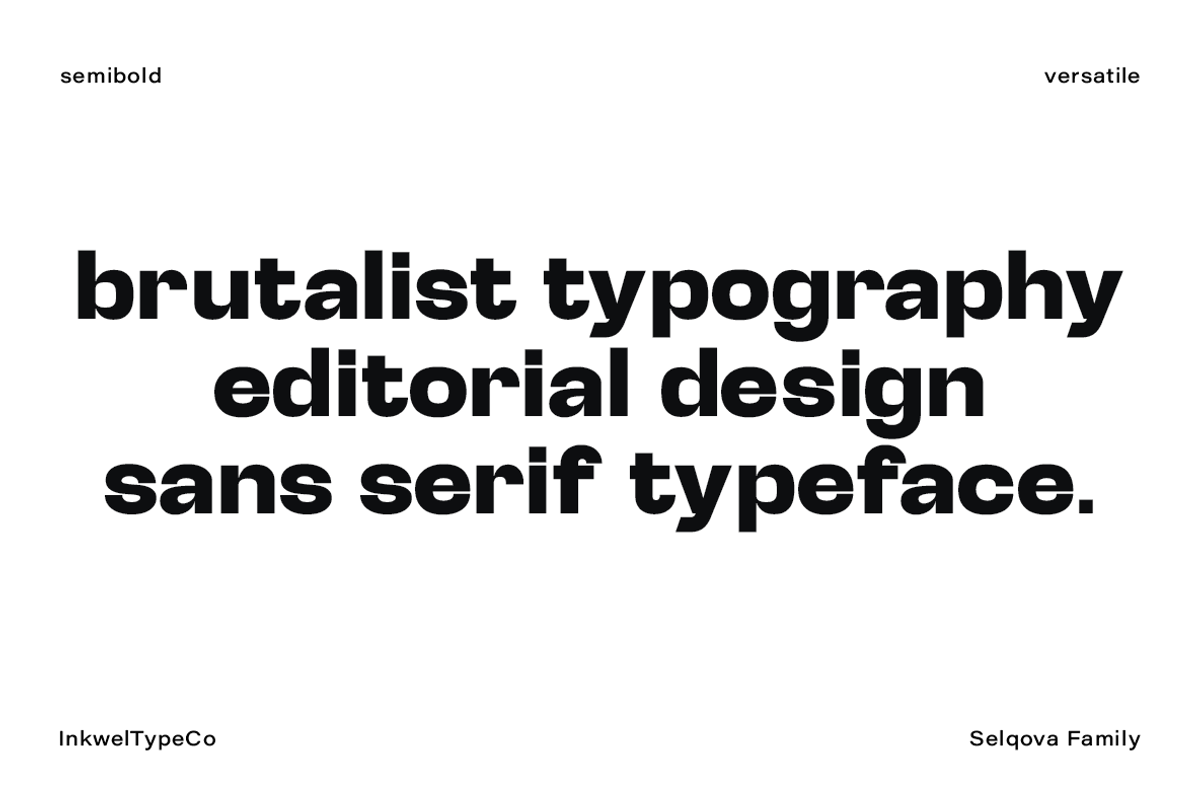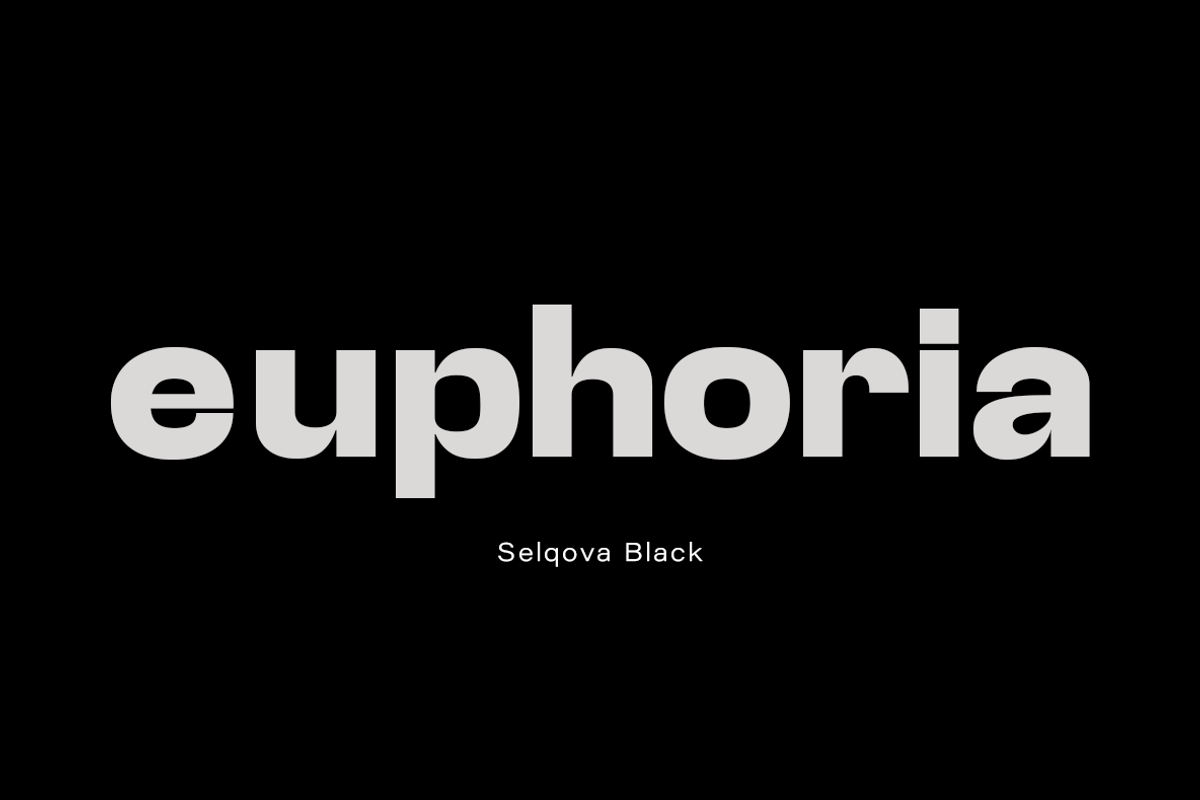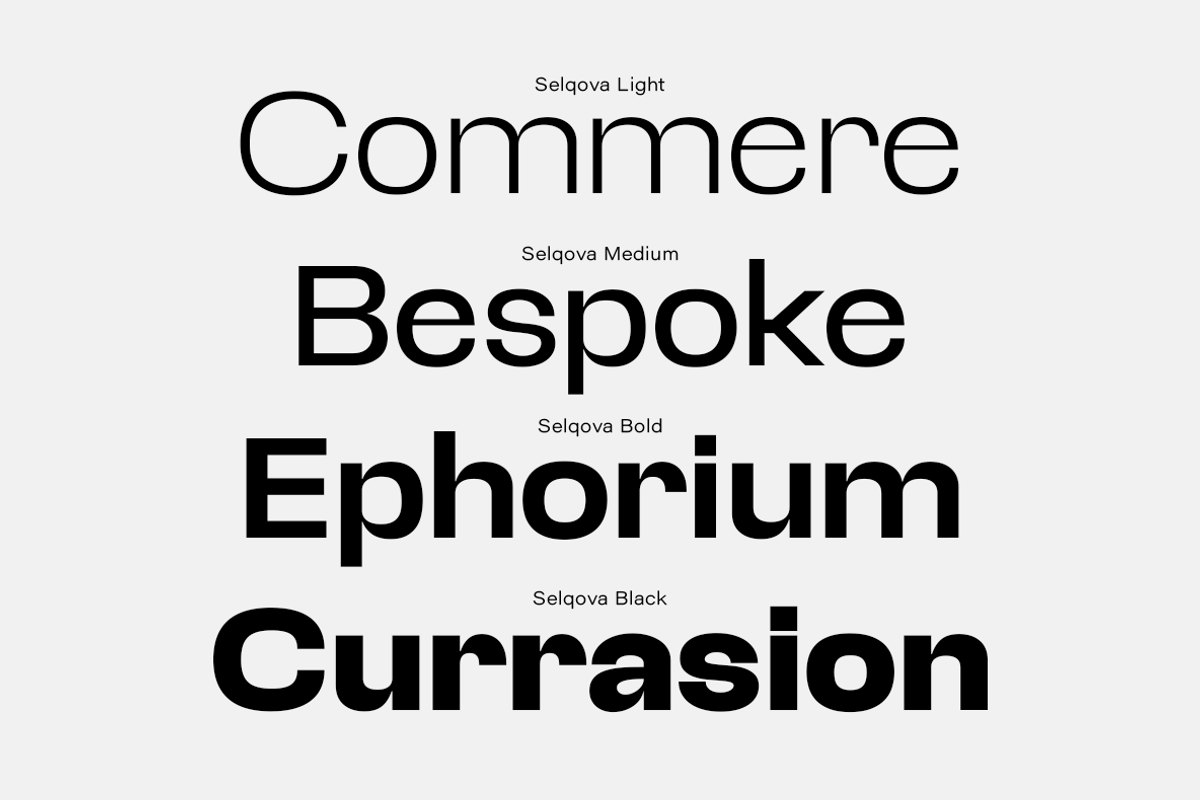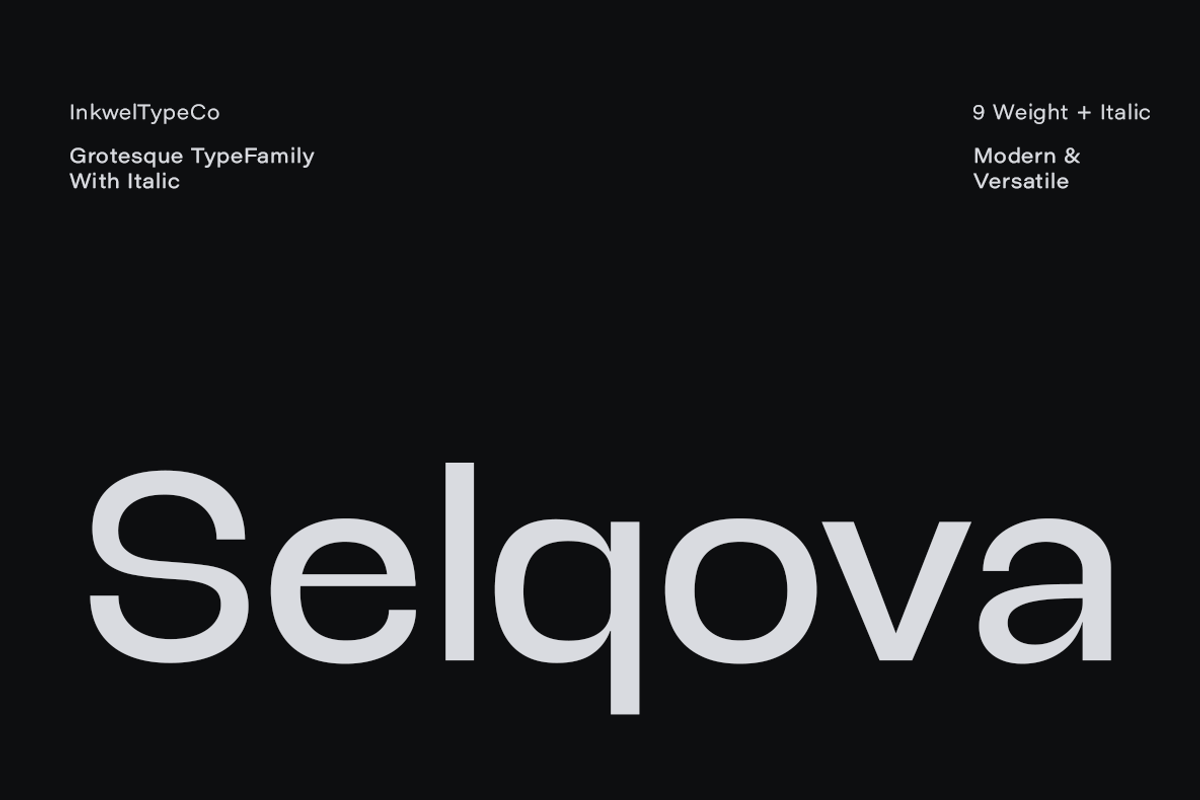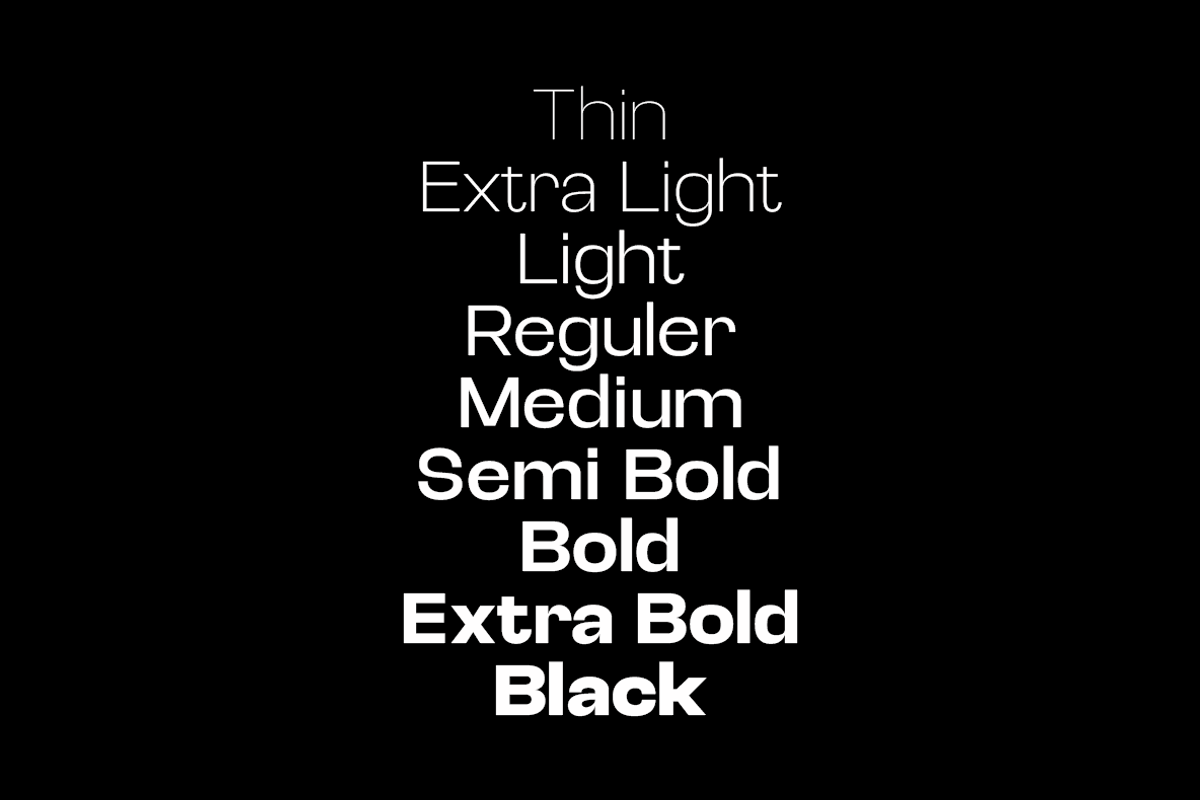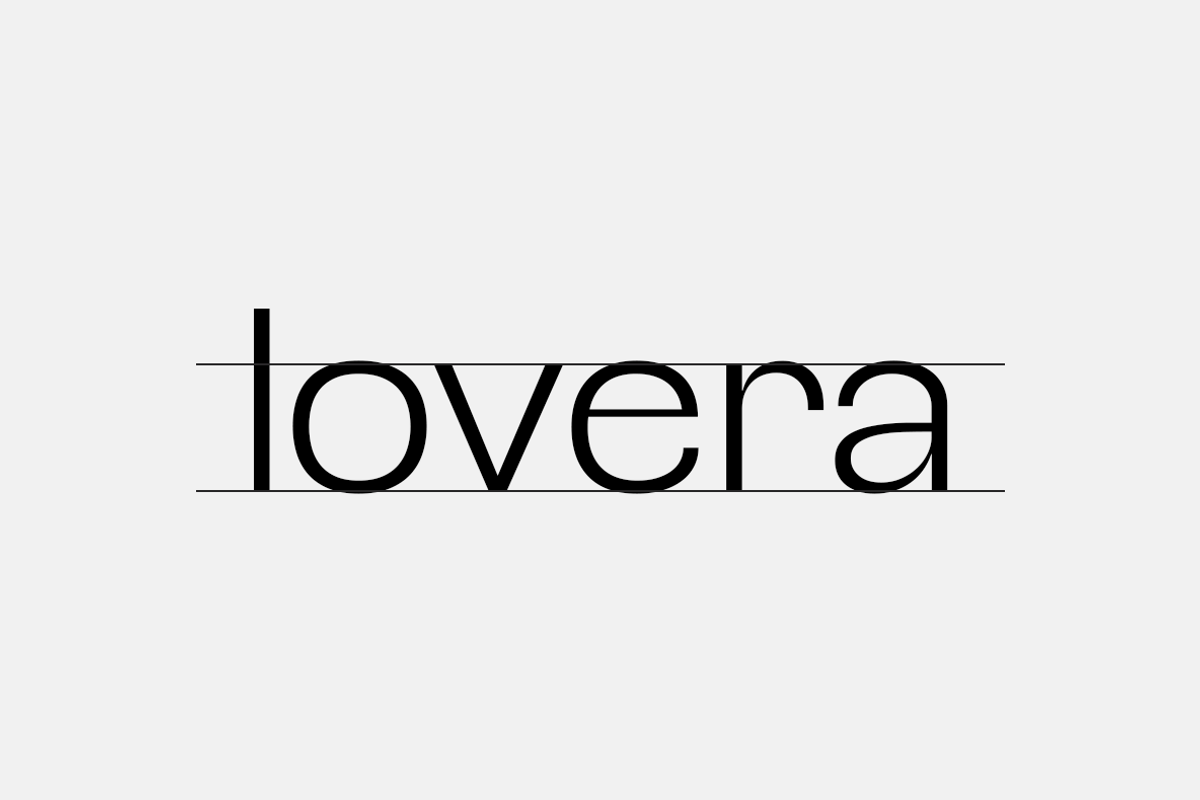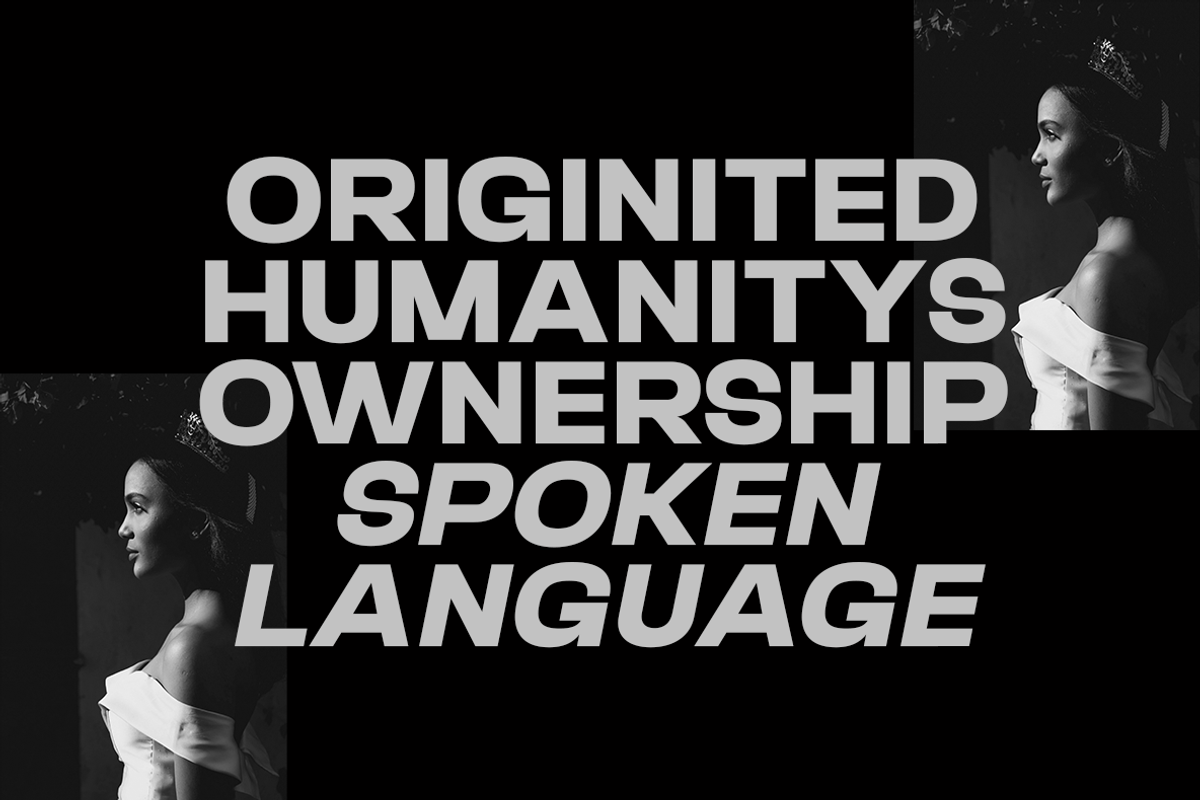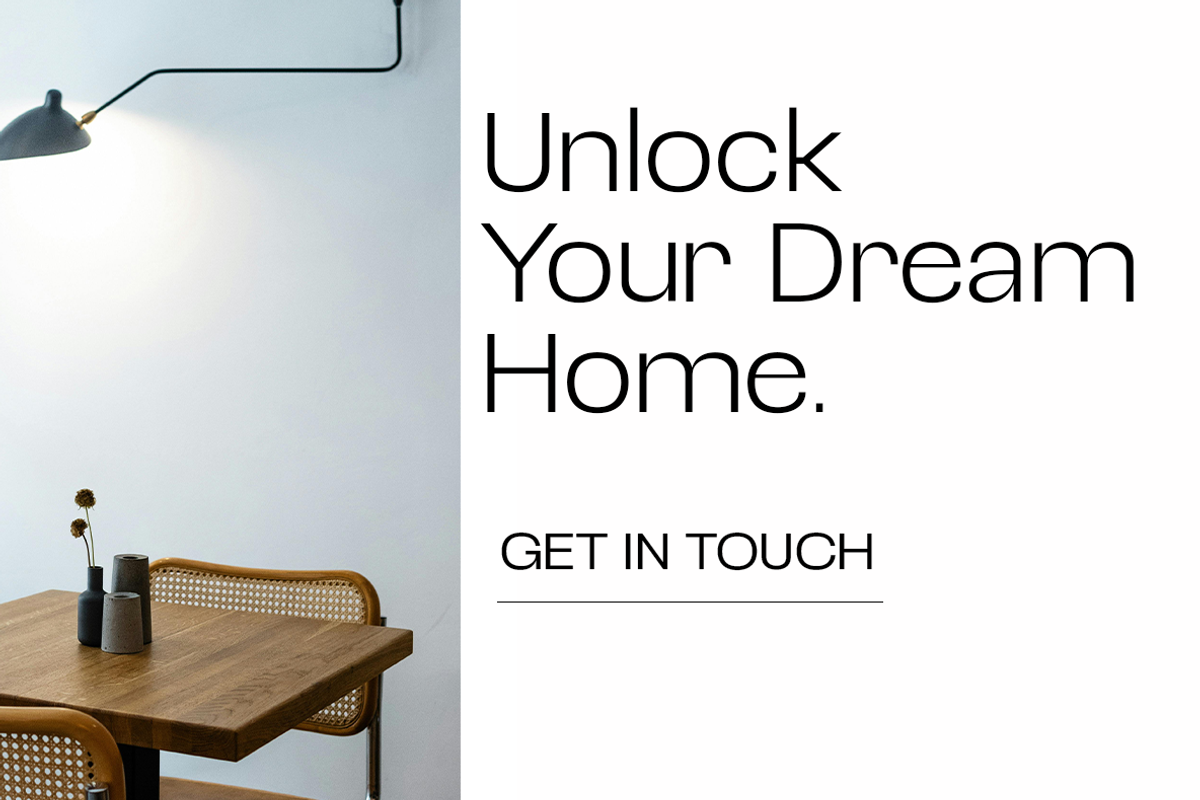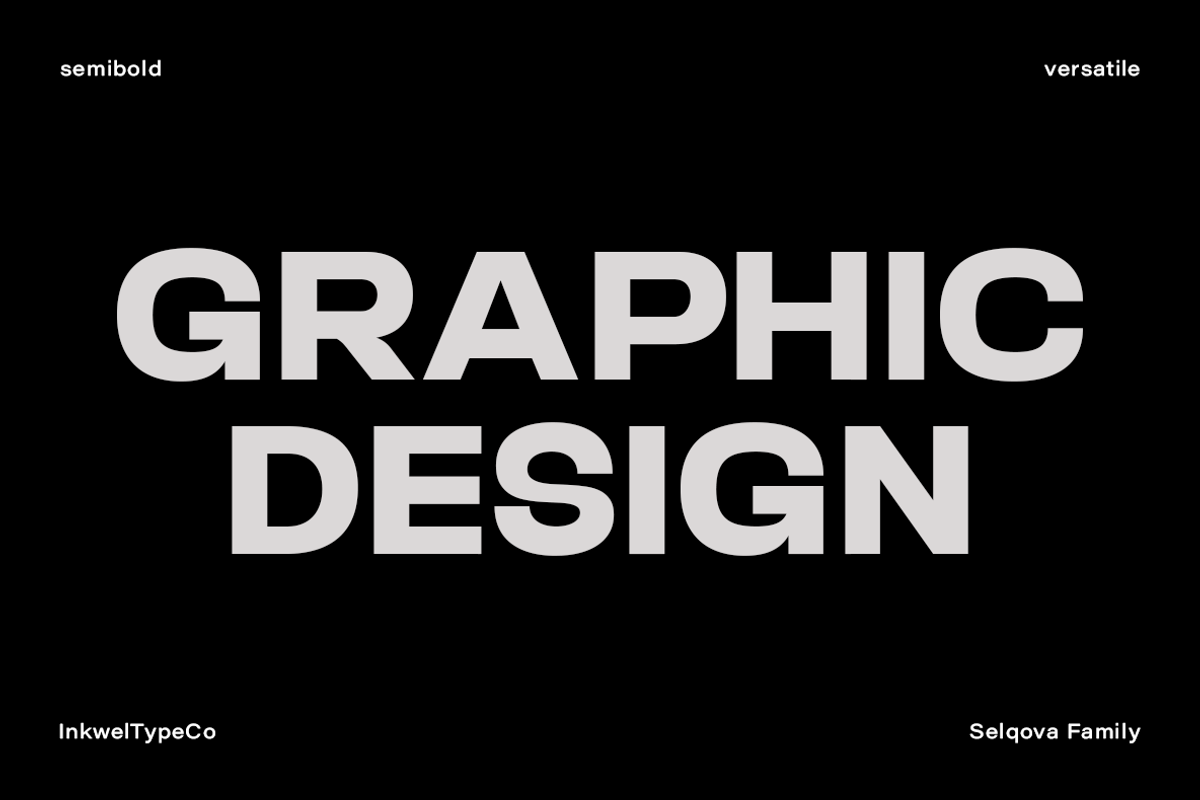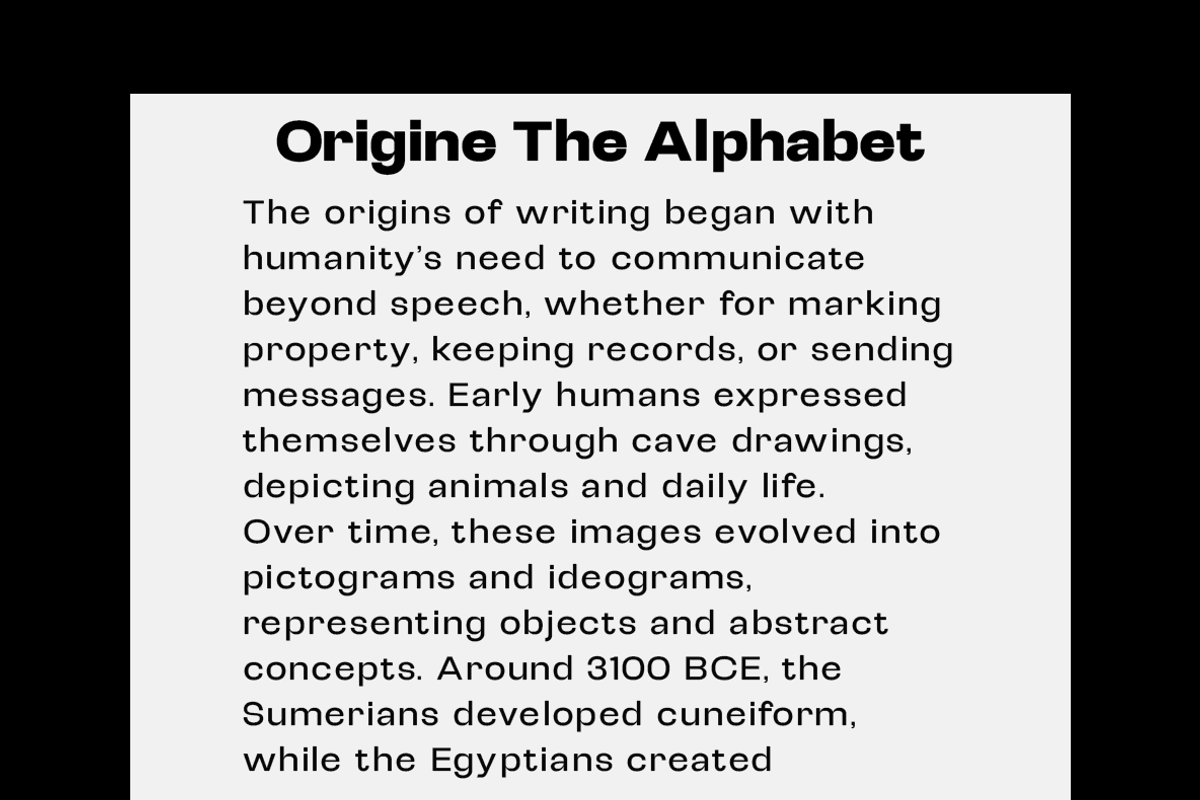
Selqova | Sans serif family
Selqova is a modern grotesque typeface designed for versatility and impact. With a clean, bold, and contemporary look, it excels in both digital and print applications. Its 9 weights, plus italics, make it ideal for branding, editorial, and display purposes. Whether you're crafting a sleek logo, a minimalist poster, or a cutting-edge website, Selqova delivers unmatched readability and style.